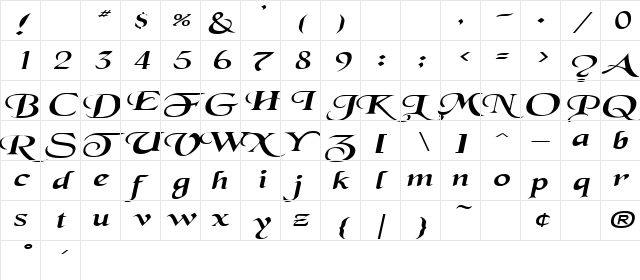
SwordsmanExtended Italic
Design Context for SwordsmanExtended
SwordsmanExtended is a composed and adaptable typeface that performs quietly and consistently across a wide range of design contexts. The slanted form adds forward momentum and visual energy.
Pro Tip: Use SwordsmanExtended for emphasis, pull quotes, and subheadings where its slanted energy can add rhythm to the layout.